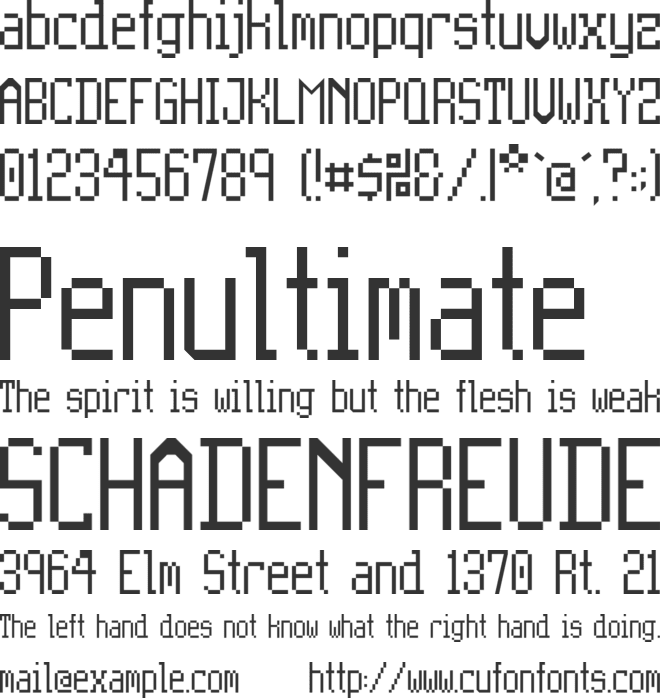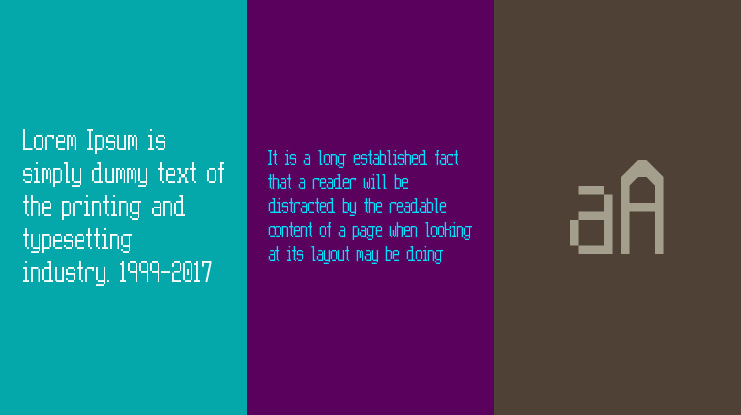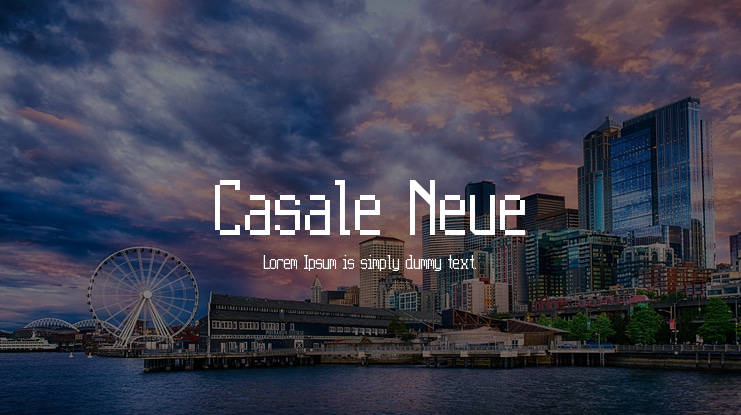
Casale Neue Font
Based on the lettering in Devo's album, Shout.
This font was used to dedicate Devo member, Robert "Bob 2" Casale, who died of heart failure back in 2014.
NOTE 1: It is the another font to support Greek and Cyrillic.
NOTE 2: It's the first draw of Shout album lettring since CasaleFinale NBP! BTW, this isn't a Touhou-themed font, it's a Devo-themed font!
NOTE 3: The only font without NBP at the end.